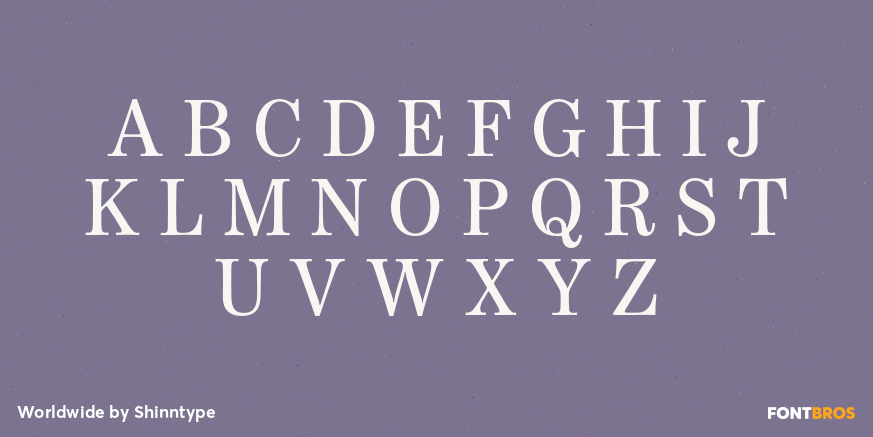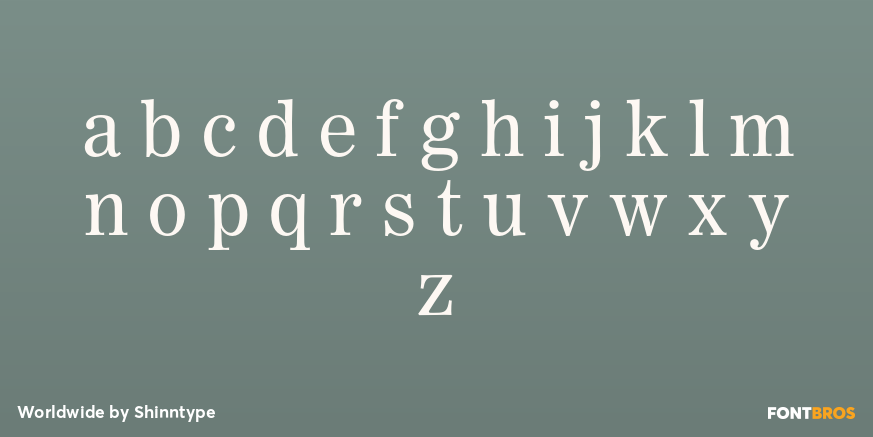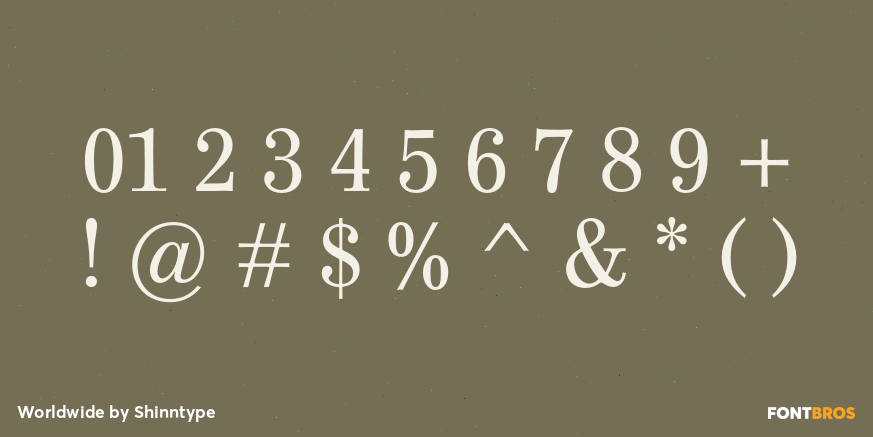
Worldwide
Buy NowWorldwide is a typeface in the Century idiom, designed with present day newspaper usage in mind. That's to say, it's somewhat condensed, and combines strong, traditional form with subtle finish.
The characters follow the Century genre closely, although there is more variety in the width of the caps: a narrowing of the E and a widening of the M, for instance, which gives a more even colour and less distortion.
There are no straight lines in the construction of Worldwide. The vertical strokes are subtly cinched in the middle, and the outside serif corners are lightly barbed. Acute joints between strokes are hollowed out with ?ink traps?. These devices counteract the softening of the typographic image that occurs with press gain, and the clogged-up, dirty impression which that can cause.
The same detailing which works imperceptibly to create clarity at text size provides visual interest in the headline fonts. These are also a touch more condensed, and a tad lighter, than their text counterparts.